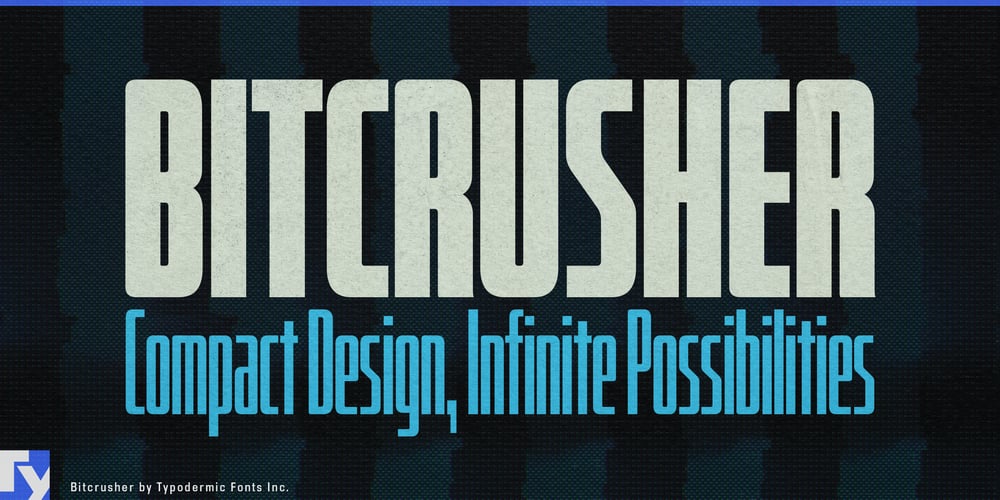
Bitcrusher Font Family was designed by Ray Larabie and published by Typodermic. Bitcrusher contains 20 styles and family package options. Imagine a typeface that pushes the boundaries of design and functionality—welcome to Bitcrusher. This avant-garde sans-serif font family draws its sleek inspiration from cutting-edge automotive design and state-of-the-art consumer electronics, offering unparalleled text compression for the modern designer.Bitcrusher’s innovative design allows you to pack more content into a single line than traditional techno typefaces, making it the go-to choice for projects where space is at a premium. Available in five weights and four widths, this versatile typeface family gives you unprecedented control over your typography. From Bitcrusher Condensed, perfect for fitting more text into tight spaces, to Bitcrusher Compressed, which reaches the standard limits of font compression, each variant offers a unique solution for your design challenges.For those who demand the utmost in typographic density, Bitcrusher Crammed and Bitcrusher Crushed push the envelope even further. Crammed boasts an abnormally small footprint, while Crushed achieves an almost impossibly high density that defies conventional wisdom. Yet across all variants, Bitcrusher maintains consistent stem, space, and gap widths—allowing you to break the rules of scaling and tracking with confidence. Bitcrusher’s flexibility is its superpower. Need thicker stems? Simply scale a narrower width to a larger size. Want to go even tighter than Crushed? Make it thinner. This typeface is designed to adapt to your needs without breaking, giving you the ultimate tool for typographic precision and control.For those seeking even more nuanced control, the Bitcrusher Variable font (available where fine fonts are sold) offers infinite customization along the weight and width axes. This cutting-edge format allows for real-time adjustments, making it ideal for responsive design and dynamic typography. Bitcrusher doesn’t just compress text—it compresses language barriers too. Its extensive character set supports a vast array of writing systems, from the familiar curves of Latin to the intricate forms of Cyrillic and the graceful strokes of Vietnamese. Whether you’re designing for a local audience or a global market, Bitcrusher speaks your language with crystal clarity.In a world where every pixel counts and every character matters, Bitcrusher stands as a testament to the power of innovative typography. It’s more than just a font—it’s a design philosophy that challenges conventions and empowers creators to do more with less. Choose Bitcrusher, and experience the future of typographic compression today.